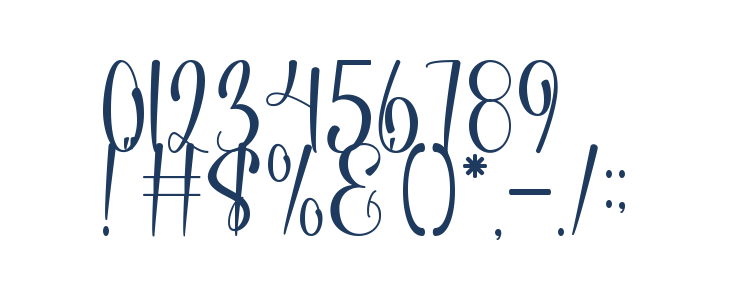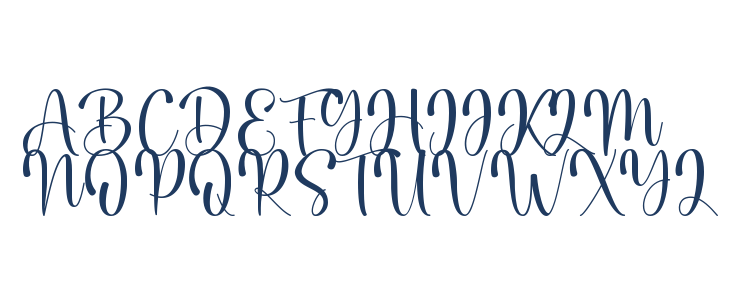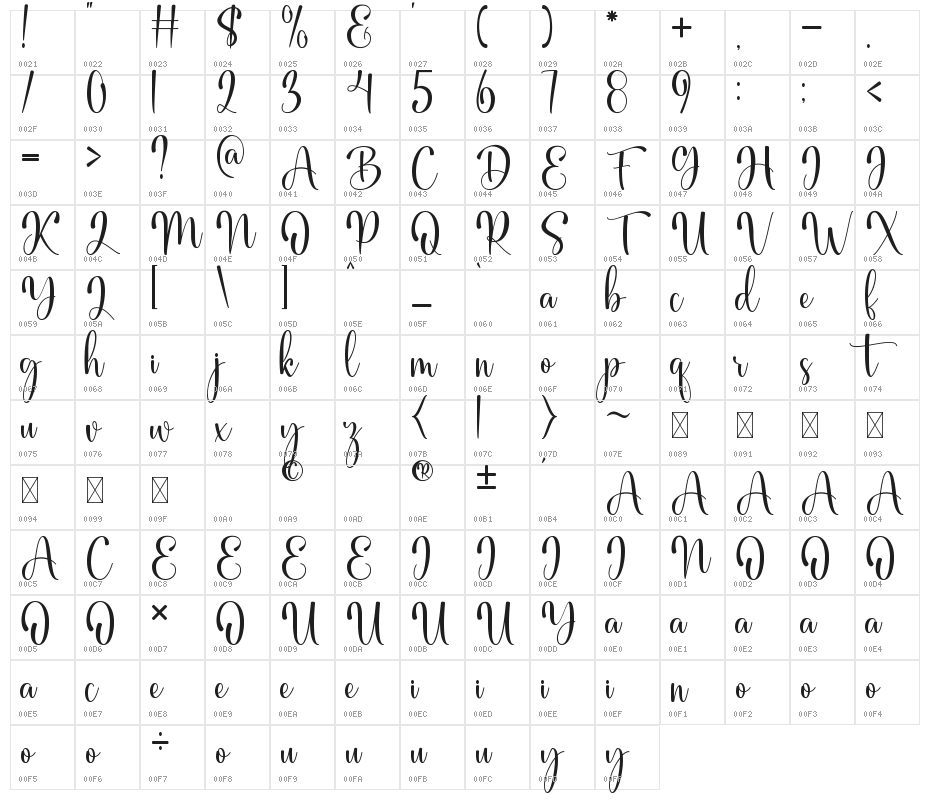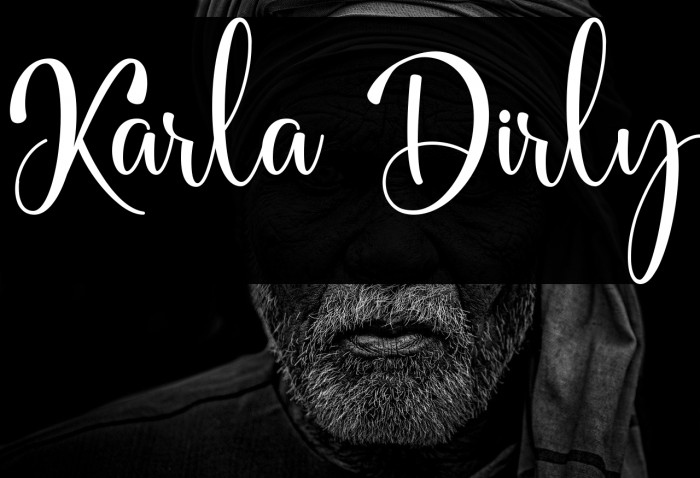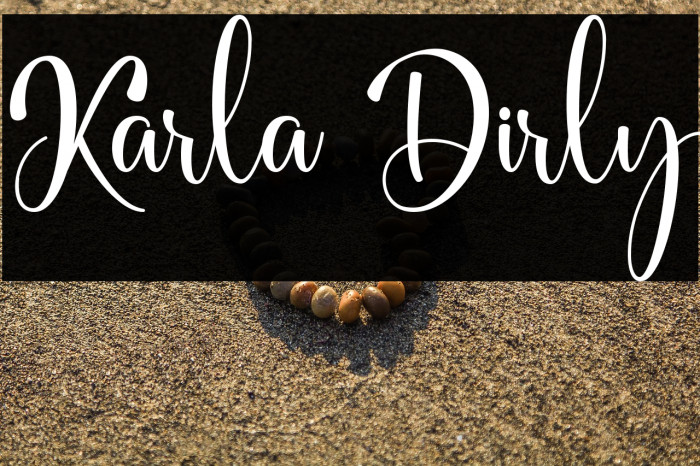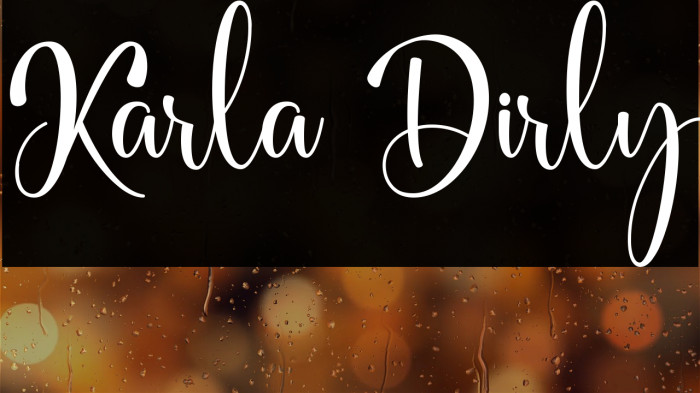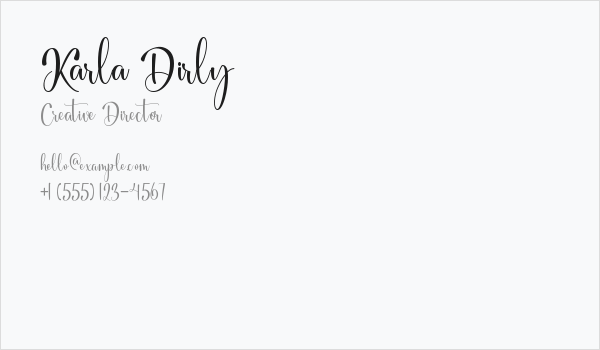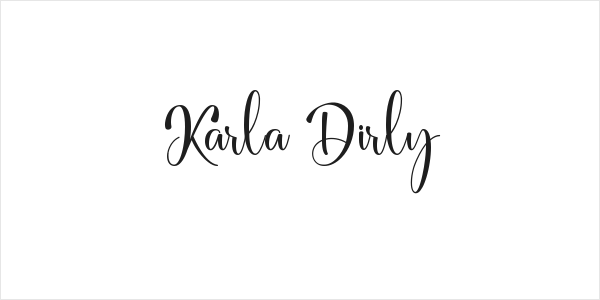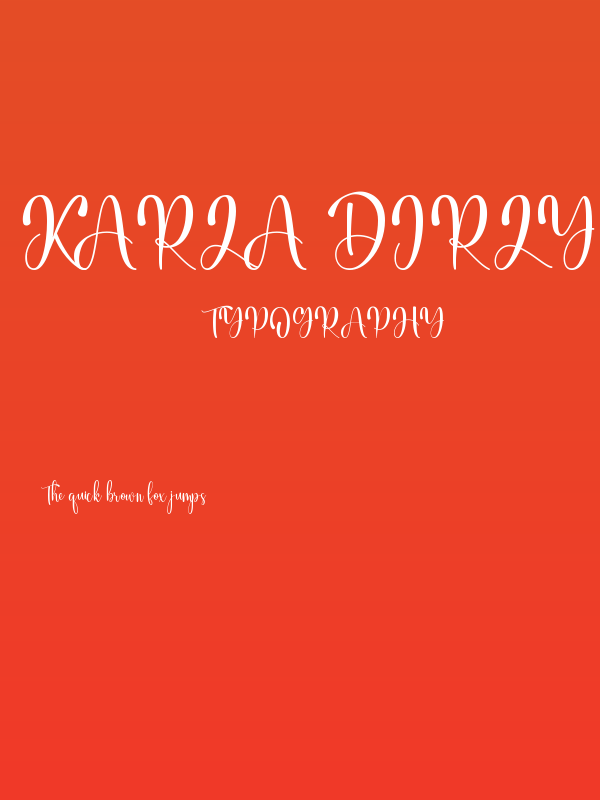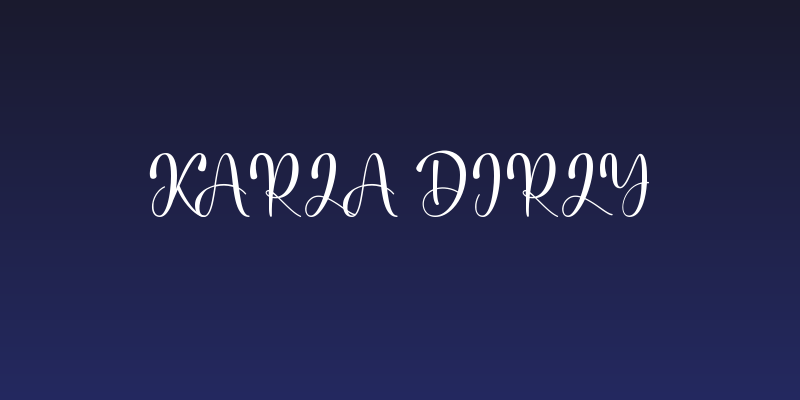
Karla Dirly Font
Karla Dirly Description
Elegant, flowing script font with high contrast strokes and decorative swashes, featuring tall ascenders and descenders with a handwritten calligraphic style.
| Overall Style | Elegant, Decorative |
| Proposed Projects | Wedding invitations, greeting cards, branding for luxury or feminine products, logos, and decorative headlines. |